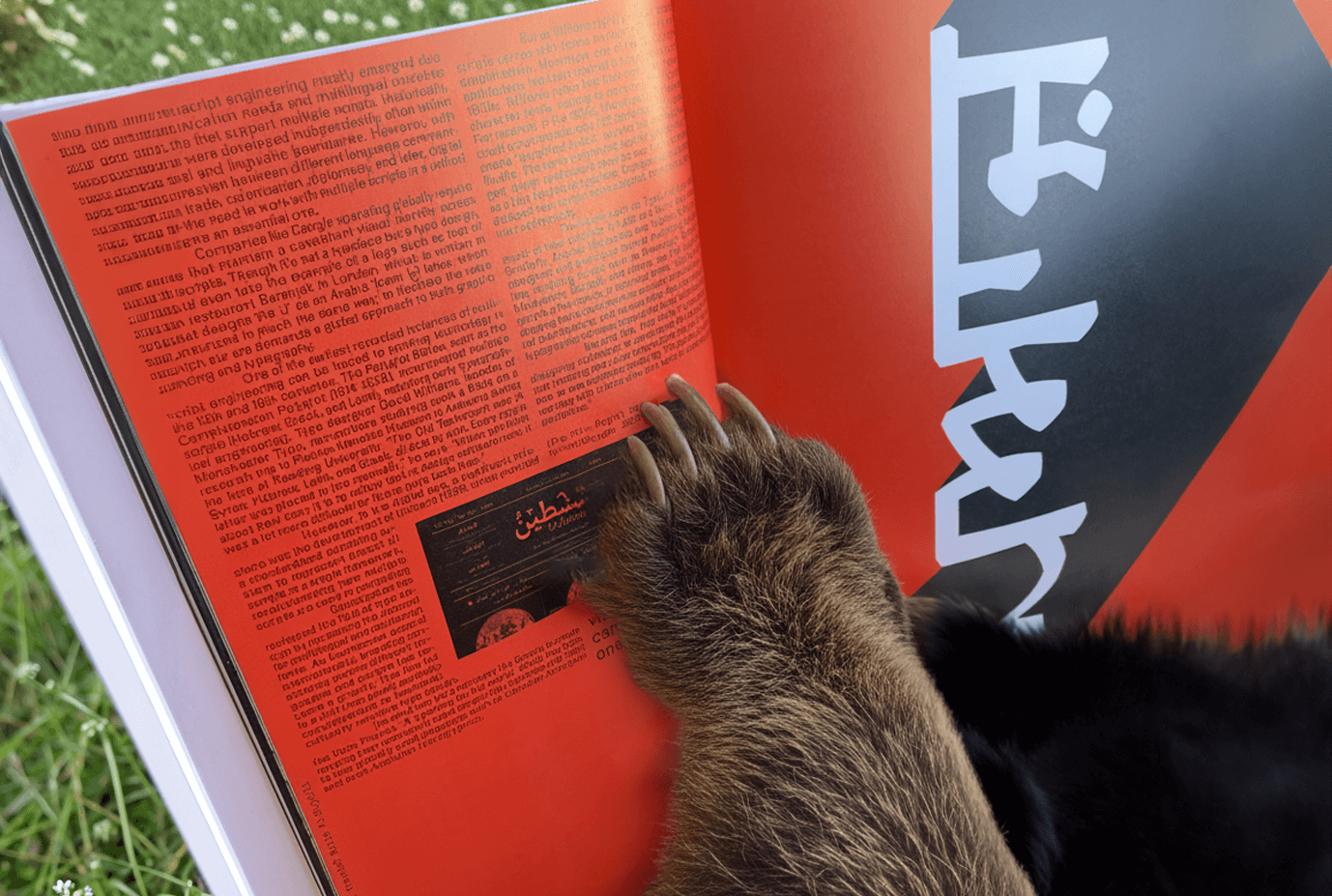
A Compass in the Shape of a Magazine: TYPEONE Issue 10 contrasts designers’ perspectives to spark new reflections on the present and future of typography.
Where does typography live today? And where will it be in 2050? The tenth issue of TYPEONE Magazine doesn’t aim to give definitive answers, but it does raise the right questions. Like every discipline reshaped by the pace of the digital world, type design has expanded in ways no one quite expected. Yet here we are, observing what’s changed and, more importantly, what we’d still like to change. This issue goes beyond documenting insights; it opens them up for shared reflection.
Designing a typeface today is rarely enough. It must be showcased, animated, distributed, and translated into multiple visual languages. The type designer has evolved from being purely a maker of forms to an art director, a collaborator, and a strategist of visibility. It’s both an added burden and a natural evolution of the craft.
In Typebeasts, tote bags and stoneware serifs, TYPEONE Magazine highlights how foundries are finding new ways to exhibit their work. The technical specimen alone no longer suffices; type now lives through objects that people wear, share, and desire. This creates new connections with audiences but also a risk, when a tote printed with a font loses its original intent, it becomes just another tote. The answer, as the article suggests, lies in collaboration: inviting others to reinterpret a typeface expands its context and renews its meaning.
Another key point revolves around speed, the pace at which typefaces are created and whether they truly need to exist. Elizabeth Goodspeed reflects on how the boom of custom fonts in branding has shortened timelines and, as a result, often led to typefaces lacking a clear purpose or distinction beyond bypassing licenses. Compressing such a complex process into the fast turnover of branding inevitably exposes its limits. Ideally, this should prompt studios and designers to ask when it’s worth developing a custom typeface. Realistically, though, and this might be our prediction, we’ll continue to see type used in projects as a blend of scattered intentions.
Across the issue, one thing becomes clear: typography no longer lives only in text. It appears in memes, reels, activist campaigns, and textiles, inhabiting new spaces where it risks blending into the noise. Functionality and innovation now coexist in constant tension, and in the race to stand out, legibility often pays the price.
Still, interviews like Benoit Bodhuin’s or Xiaoyuan Geo’s How to use free tools to create a fun typeface, together offer a hopeful counterpoint. Both celebrate imperfection as fertile ground, a reminder that experimentation and accidents can be just as valuable as precision.
Ultimately, TYPEONE points to decision-making as one of the most critical aspects of type design today: when to collaborate, when to create custom work, when to guide clients toward existing fonts, and when to keep control over distribution instead of opting for open platforms like Google Fonts. Balancing legibility and experimentation is, in itself, choosing the direction of the discipline. This issue becomes a thoughtful guide for navigating that space.
What remains after reading is a sense of motion, typography as something alive, mutating, and self-aware. And we, as designers or simply observers, are invited to think alongside it: to wonder where it lives now, and where it might go next.
TYPEONE MAGAZINE Issue 10 doesn’t seek absolute truths, but it offers perspectives worth considering. In a time defined by acceleration, that feels less like a conclusion, and more like a much-needed pause.